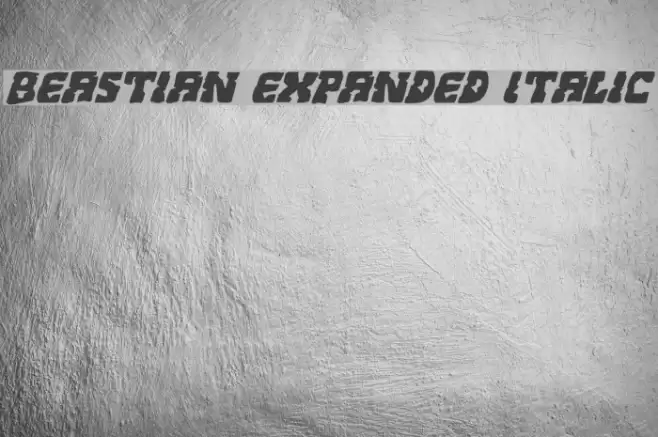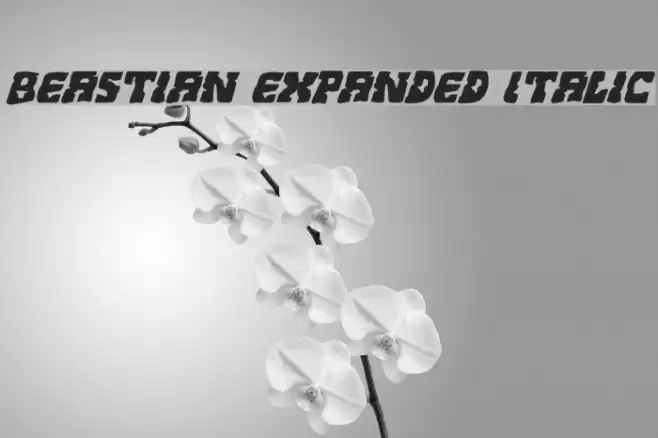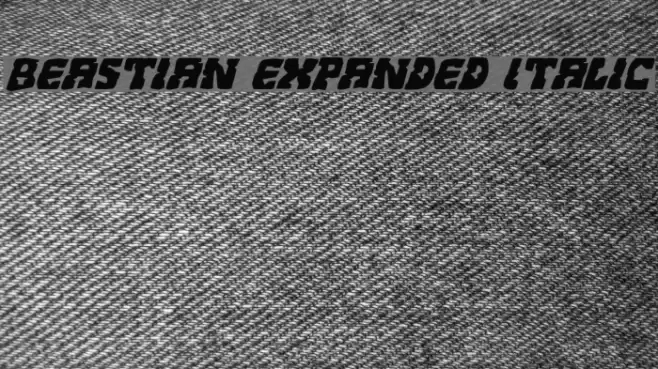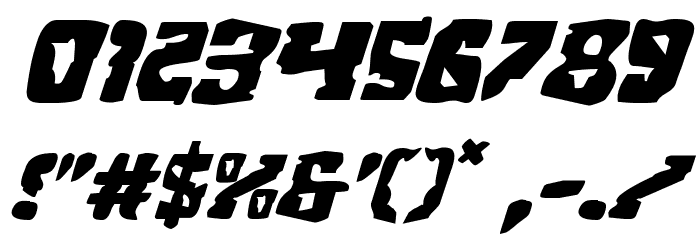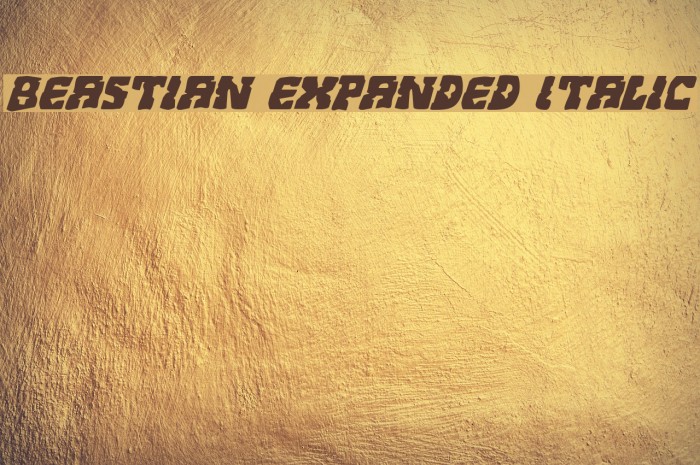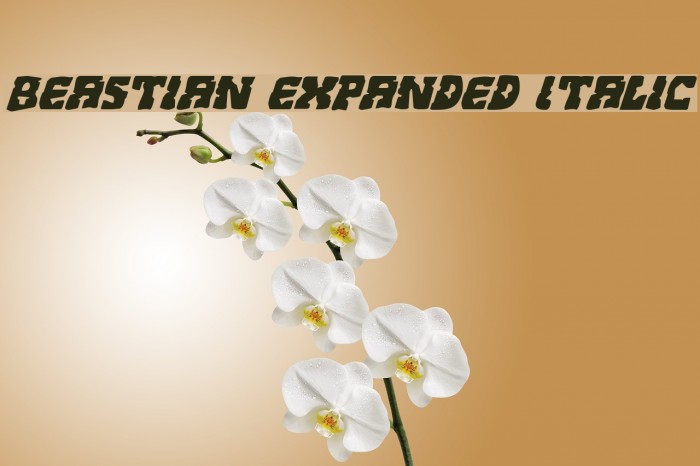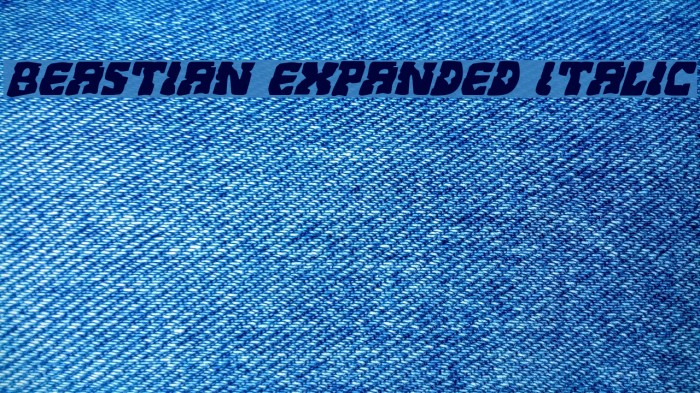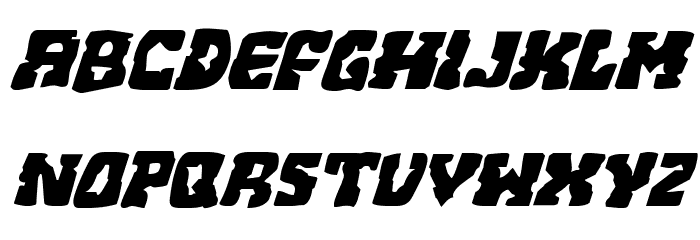
Beastian Expanded Italic Font
Beastian Expanded Italic Description
This font exhibits a bold and dynamic style with an italicized slant, giving it a sense of motion and energy. The characters are heavily weighted with thick strokes, creating a strong visual impact. The expanded width of the letters enhances its presence, making it suitable for attention-grabbing designs. The font features a modern and edgy aesthetic, with sharp angles and unique cuts that add to its distinctive appearance. The character spacing is relatively tight, contributing to its compact and cohesive look. This font is ideal for projects that require a bold statement, such as headlines, posters, or branding materials.
A bold, expanded, and italicized font with a modern and dynamic style from Uncategorized fonts.
- Proposed Projects: Ideal for use in headlines, posters, branding, and any design requiring a strong visual impact.
- Width: Expanded
- Character Spacing: Tight